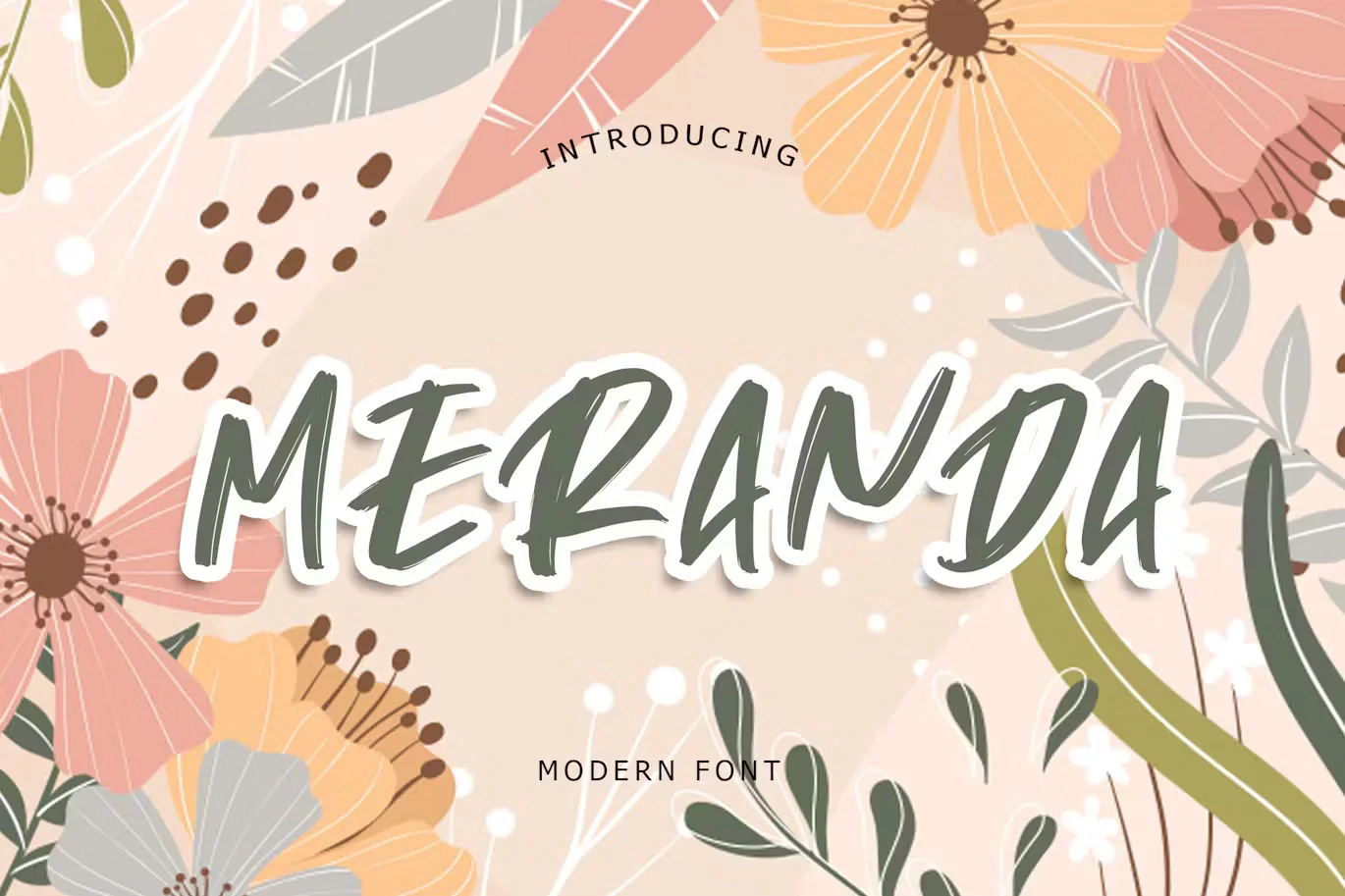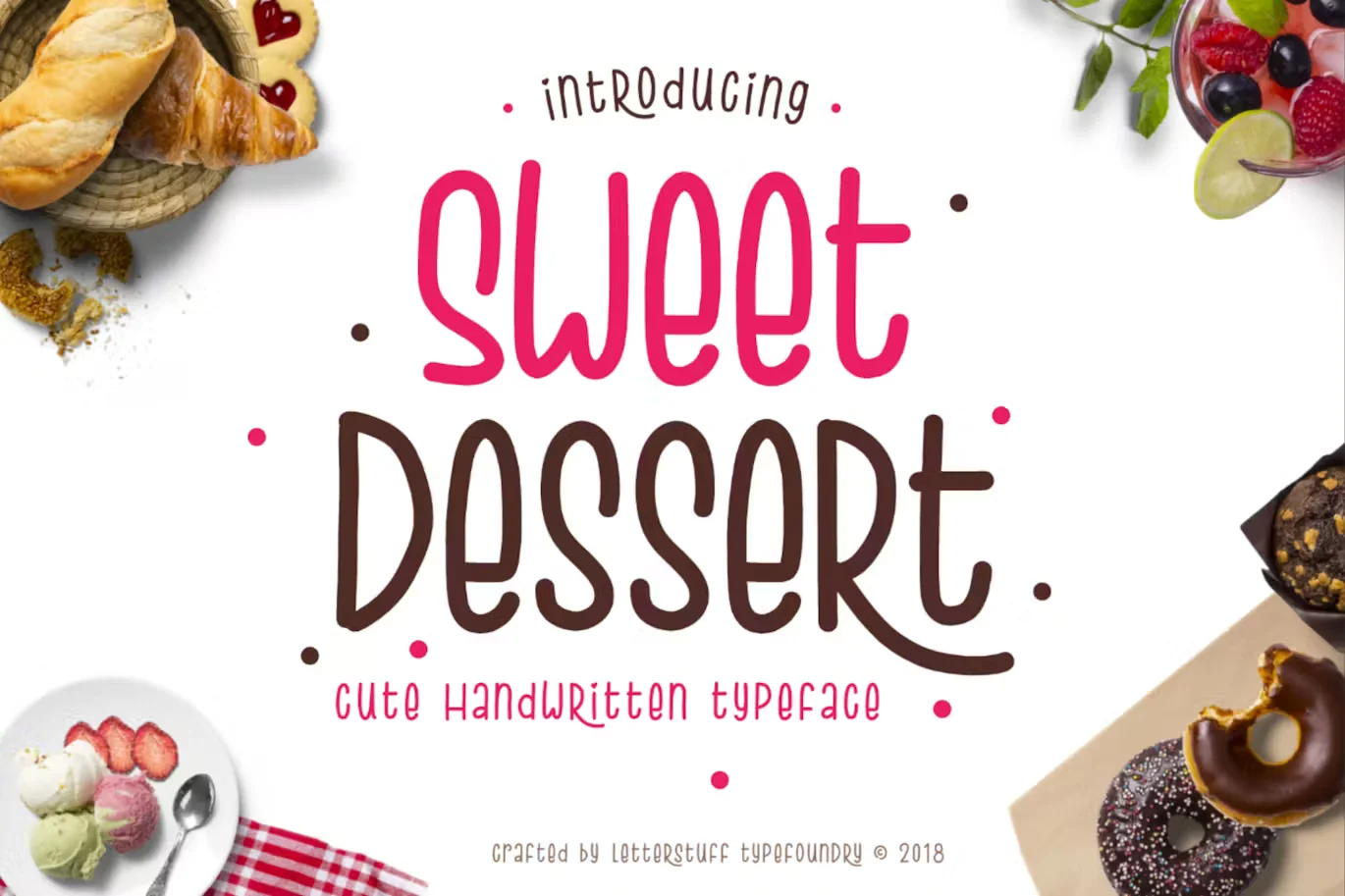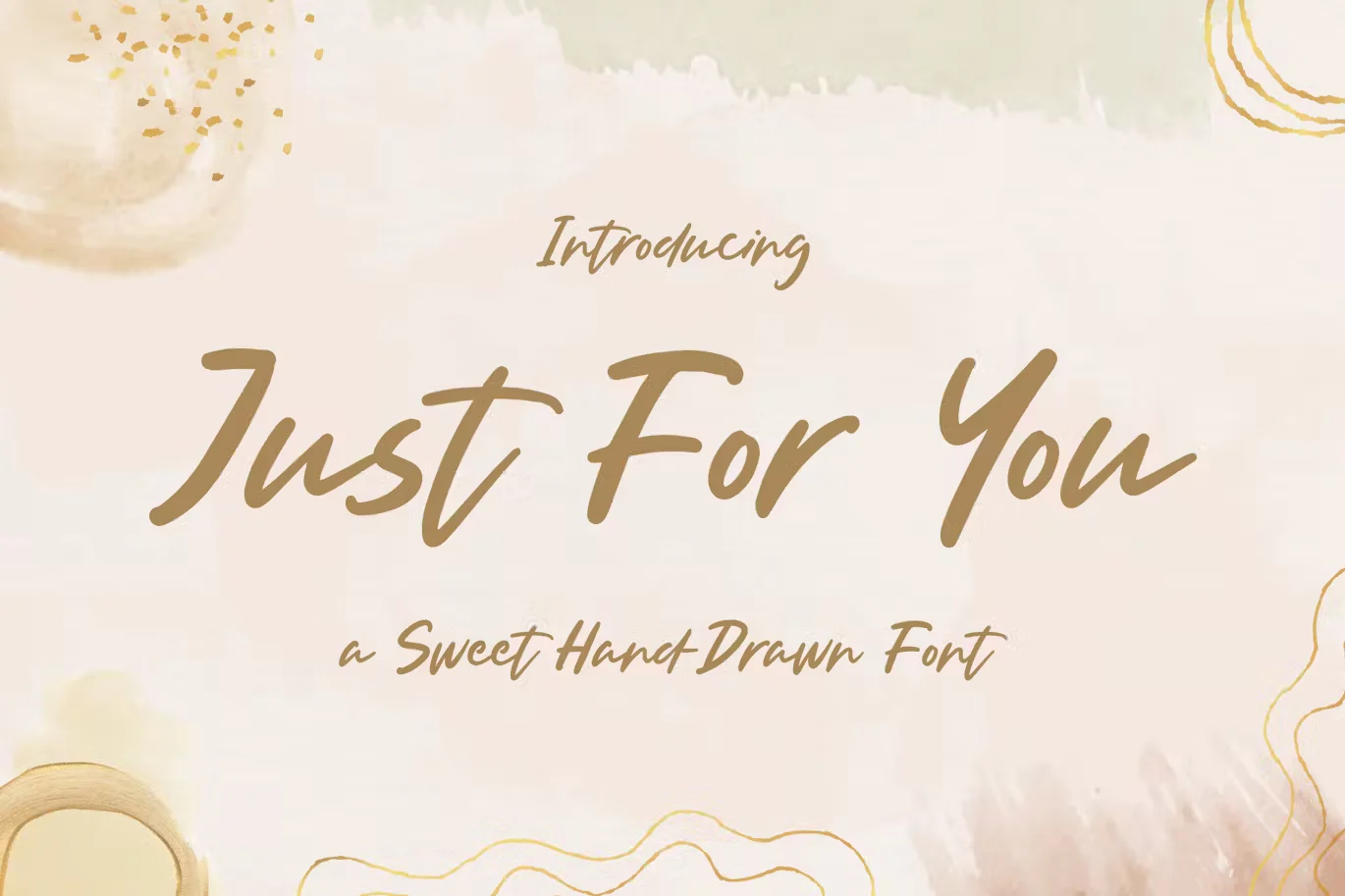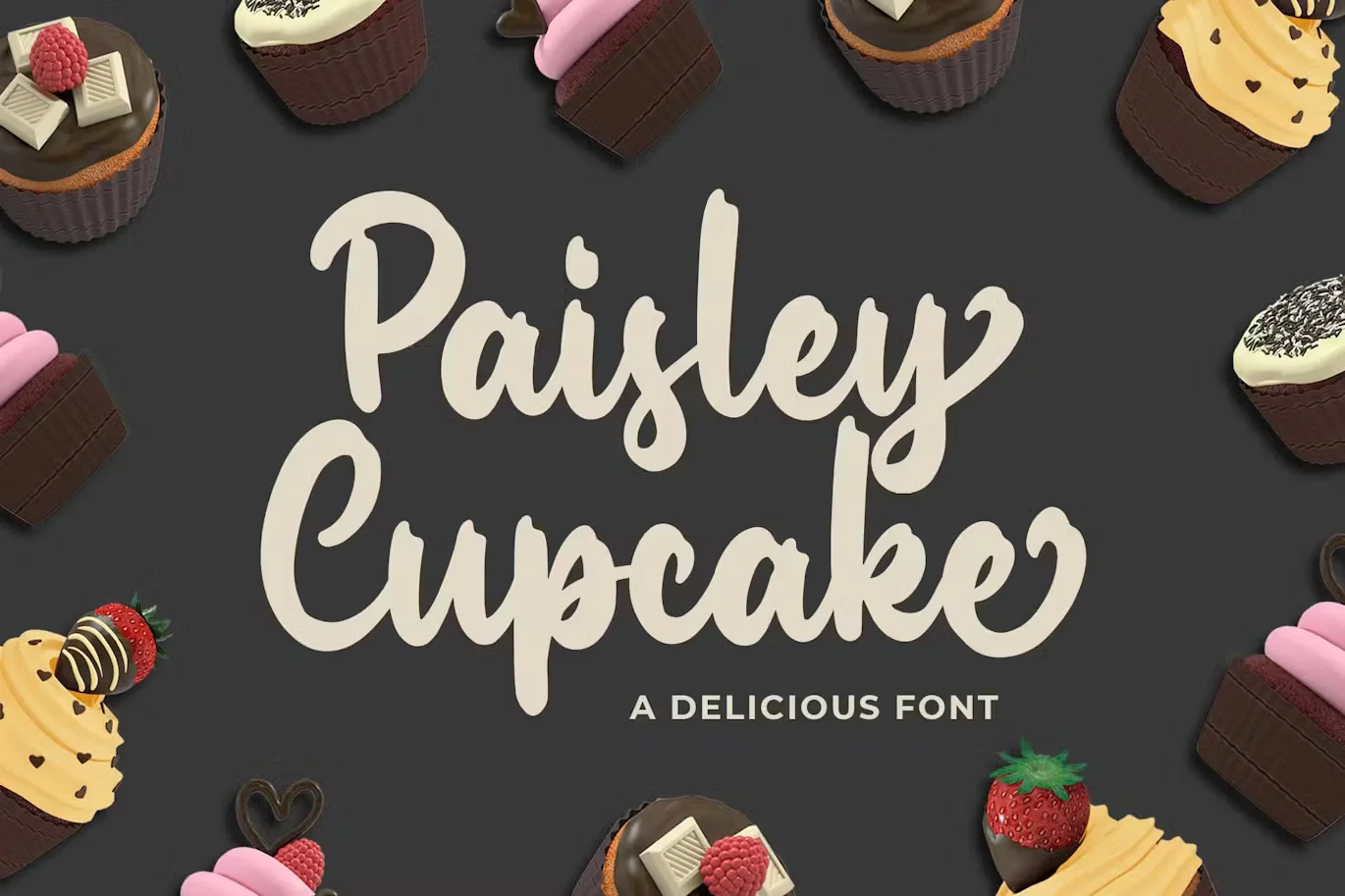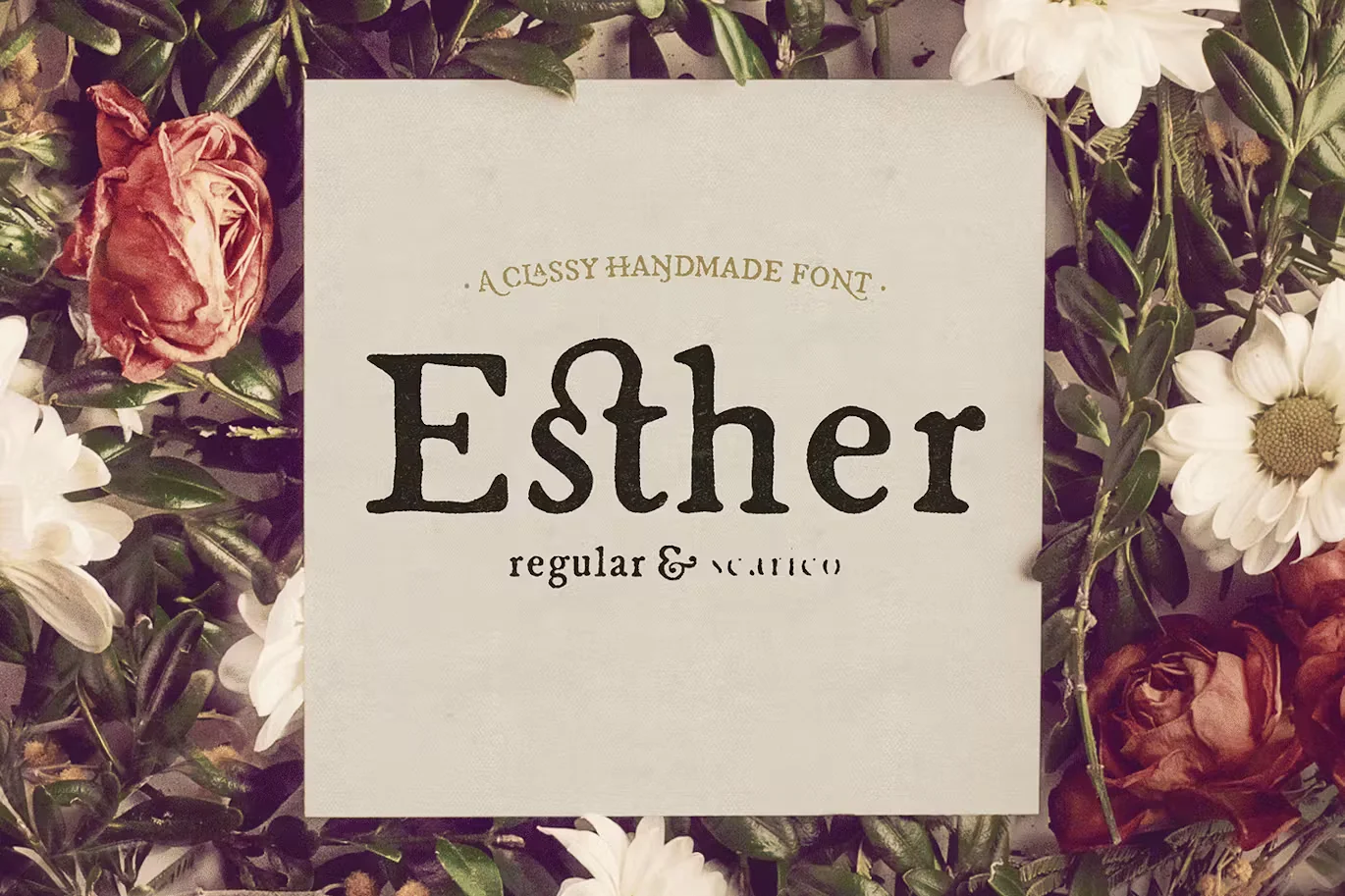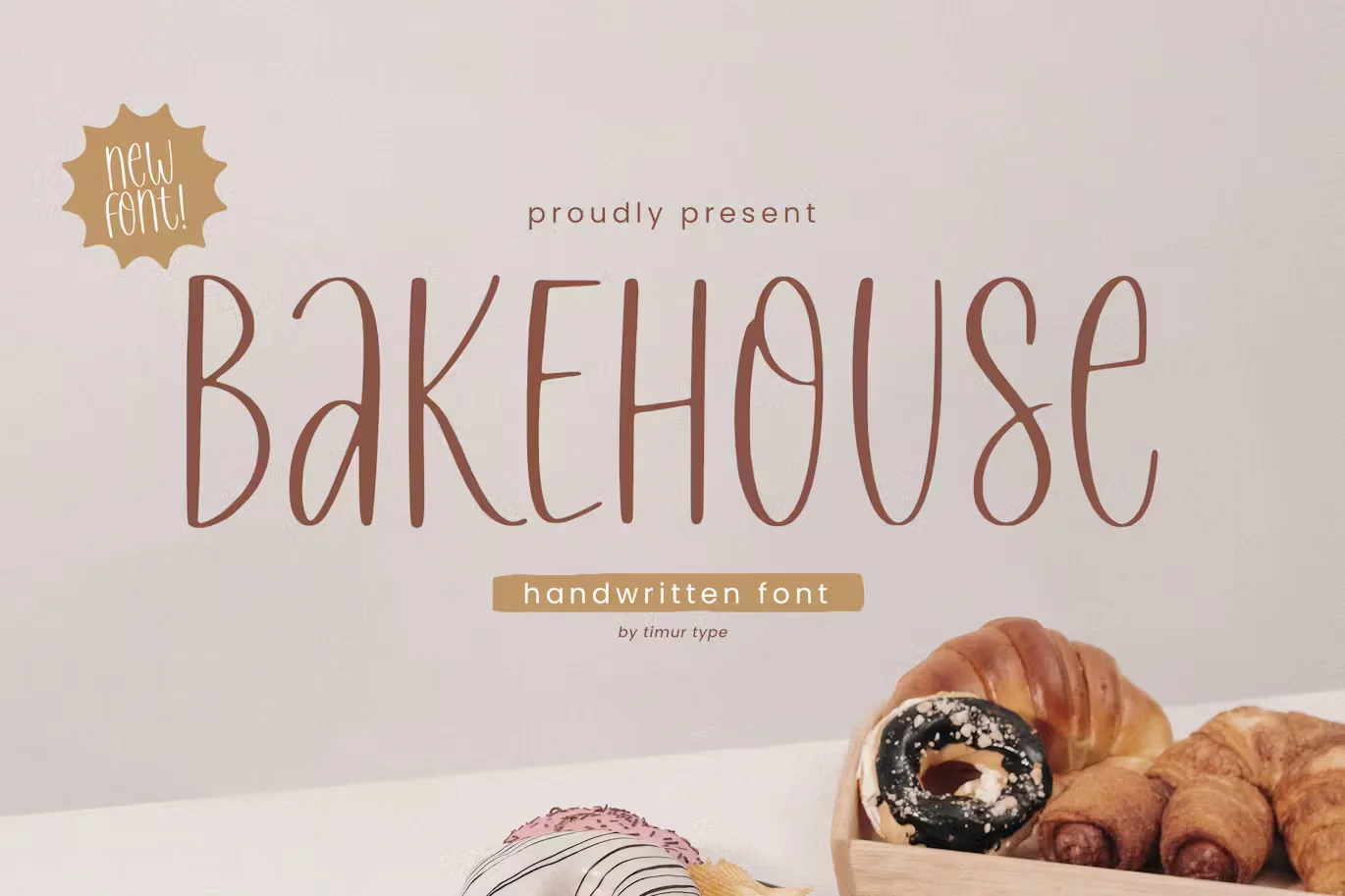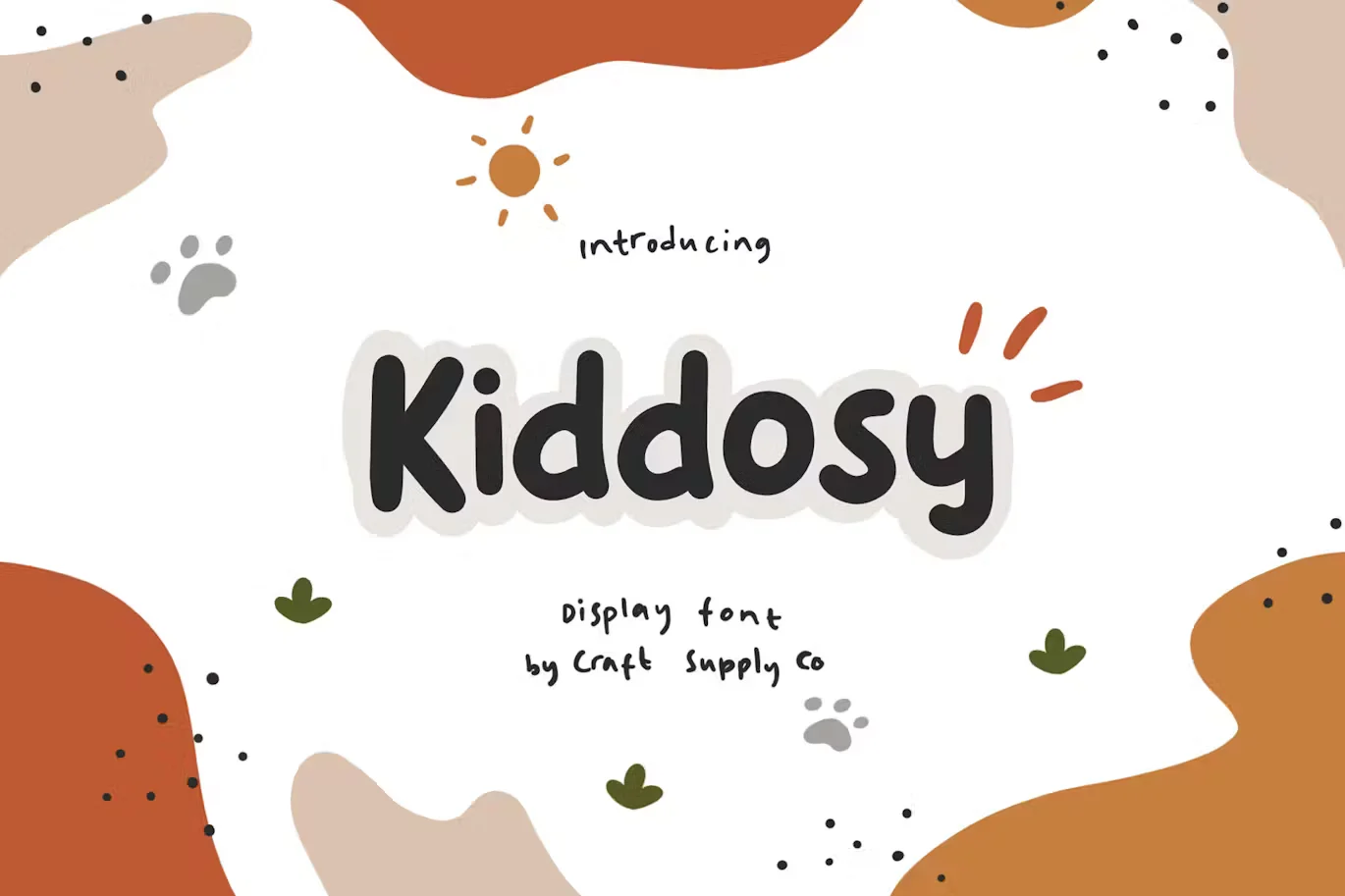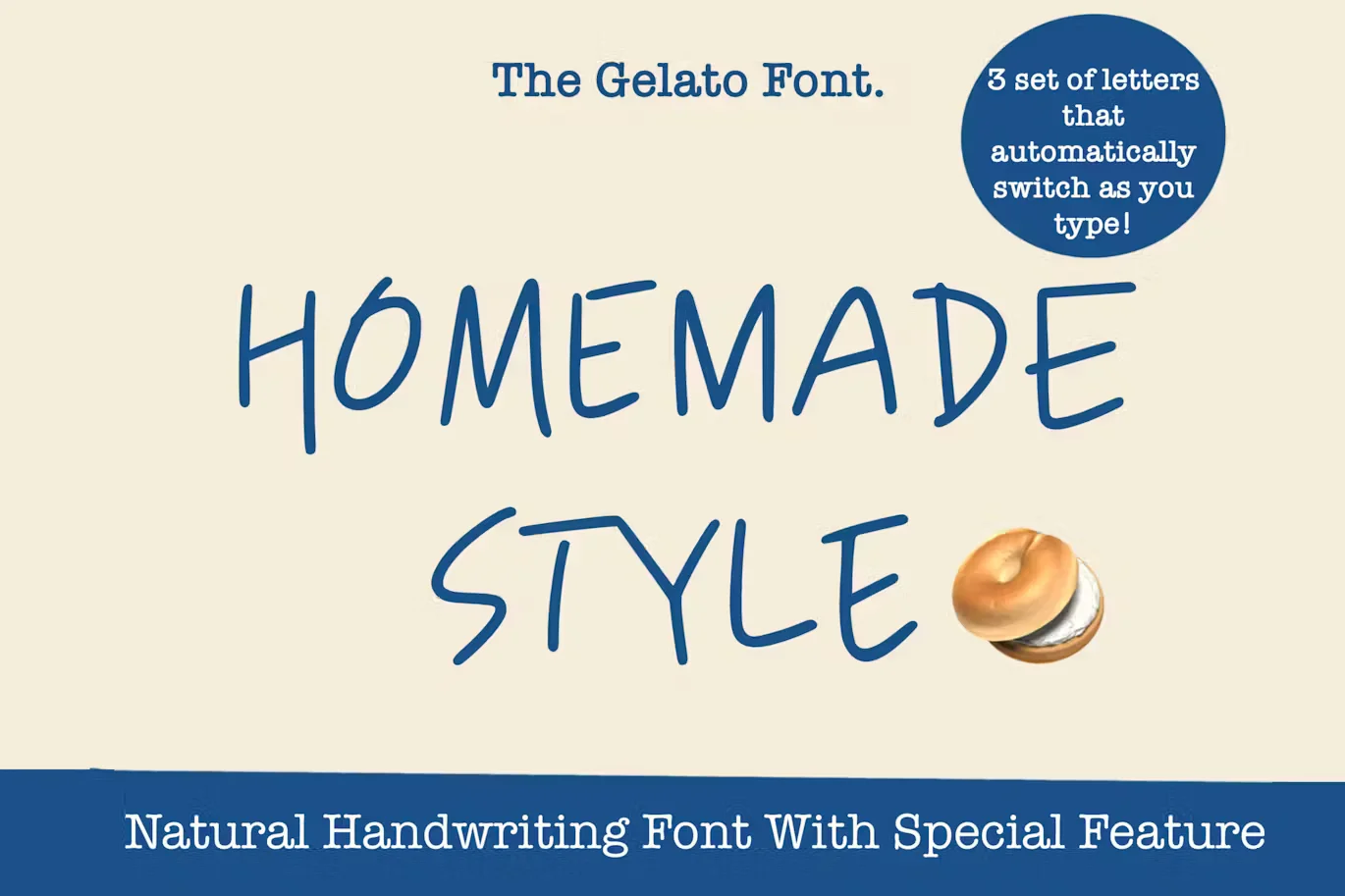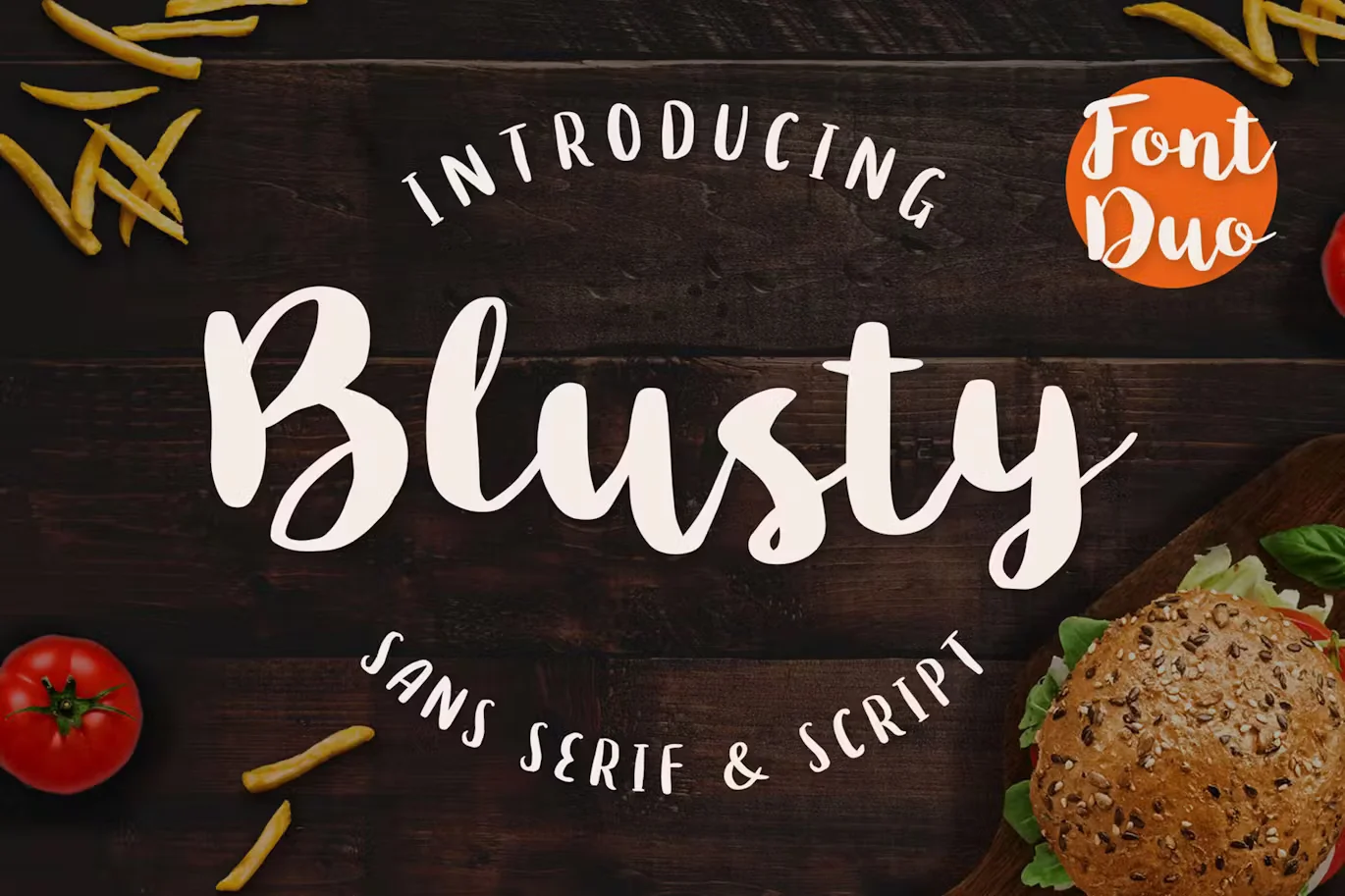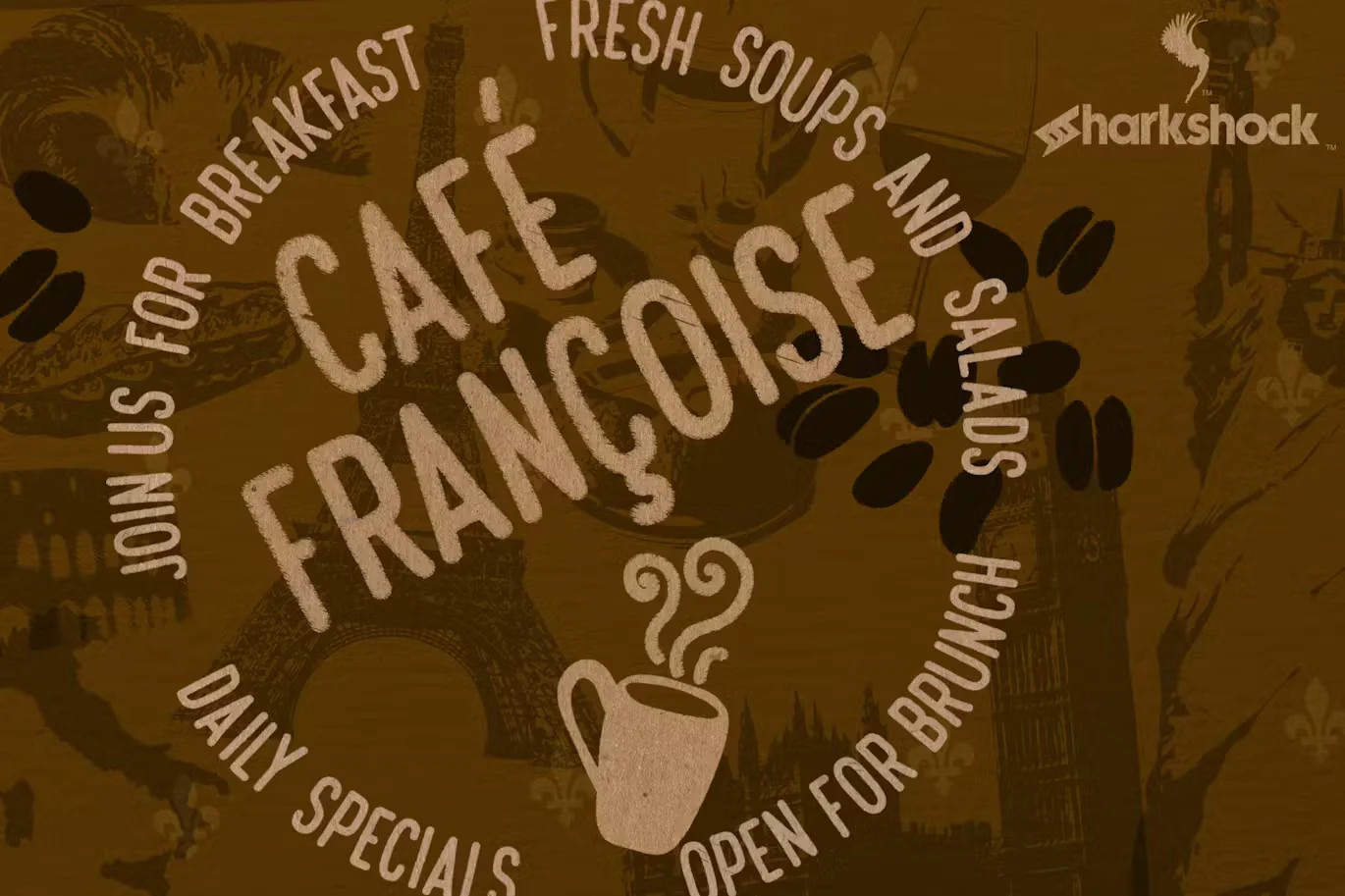
25+ Birthday Cake Fonts For Bakery Design Needs
Birthday cakes should look fun and happy. And the font you use makes a big difference. A cute or playful font can make the cake look even better and more special.
These fonts are great for writing names on cakes, making bakery signs, or designing party invites. Some look like frosting, some are sweet and curly, and others are bold and easy to read.
Here are 25+ birthday cake fonts you can use for all your bakery and party needs. They’re simple, fun, and made to bring smiles.
Why Use Birthday Cake Fonts?
Birthday cake fonts are designed to capture the essence of celebration and fun. These fonts often feature playful curves, bold colors, and decorative elements like candles, sprinkles, or icing-like swashes. Using these fonts isn’t just about making designs different; they infuse your messages with a sense of excitement and festivity, making your bakery’s offerings more enticing and delightful.
Top Birthday Cake Fonts
Here are 25 great fonts you can use for birthday cake designs:
Bravely – Handwritten Font
Bravely – Handwritten Font is an handwritten script font based on the expression of real handwriting, lets you transform type into an exciting and beautiful piece of work. The irregular, hand-lettered look adds a real human touch to things and comes along with a lot of loving details.
Bakery Goods Font
Bakery Goods is a retro display font that can be used for a variety of creative projects, from letterheads and titles to stationery. Its unique vintage style is sure to grab attention and make your work stand out.
Sanslem Font
Sanslem is a great font choice for companies, cake shops, and bakeries. It takes inspiration from the idea of dry bread with jam, simple, yet satisfying. That feeling led to the creation of this unique and friendly typeface.
Americana Bakery – Modern Script
Americana Bakery font with a Modern Script perfect for any creative design. This handmade font will make your design has a beautiful natural touch for each details. It is perfect for any design project as Invitation,logo, book cover, craft or any design purposes.
Belicia! – Casual Script
Elevate your designs with the beauty and charm of Belicia! A monoline font that exudes cheerfulness and elegant style. With its versatile and unslanted shape, this script font offers a flexible and playful impression, making it the perfect choice for your design projects.
Bakery Home – Funny Font
Bakery Home is a funny, bold and modern handwritten font, carefully handcrafted to become a true favorite. It looks outstanding in any context, whether it’s being used on busy backgrounds or as a standalone headline!
Esther Handmade Font
This font is the ultimate version of this serie, with serifs. Esther is ideal for cookbooks, menus, liquor bottle labels, food packaging, wedding invitations, greeting cards, tea boxes, food blogs, small shops, cupcake bakeries and so on.
Bakerhouse Font
This beautiful font is packed with special characters, which allows you to create truly unique and good designs. From food menus, posters, logos, logotypes, branding, headlines, weddings, flyers, quotes, labels, packaging, signage, signboards, and beyond,
Tropical Food Truck Font
It is a handwritten marker font that can be used as a Marker Felt Font, Handwritten Chalk Font. Great suitable for numerous use such as quotations, banners, logos, product packaging, titles, headers, menu lists and even for digital note-taking!
Kiddosy – Playful Display Font
Kiddosy – Playful Display Font is an handwritten displau font based on the expression of real handwriting, lets you transform type into an exciting and beautiful piece of work. The irregular, hand-lettered look adds a real human touch to things and comes along with a lot of loving details.
Moon and Chips Script Font
This new Moon and Chips Script Font is a hand lettered font. Created for everyone love making something beautiful, and special who loved to make a chips and other snack.
Crumble Bakery Handwritten Font
The Crumble Bakery Handwritten Font is a fresh, neat and versatile font take advantage of it and see how amazing it is. Crumble Bakery font will be perfect for logo, greeting cards, presentations, headlines, lettering, posters, branding, quotes, titles, etc.
Rolling Bakery Handwritten Font
It is a unique, clean and rough script font that has a Latin look with beautiful handwriting like curved edges, giving it a distinctive look. Rolling Bakery font will be perfect for logo, packaging, headlines, lettering, posters, branding, quotes, titles, books, book title, or just used to express words above a text overlay.
Meranda Modern Font
This font perfect for branding projects, logo, book cover design, tshirt designs, social media posts, advertisements, product packaging, product designs, label, watermark, invitation, stationery and any projects.
How to Choose the Right Font
Choosing the right font depends on the theme and style of your cake. Here are some tips:
• Readability: Make sure the font is easy to read.
• Style: Match the font style with the theme of the cake.
• Theme: Consider the recipient’s preferences and the overall design.
Conclusion
Choosing the right font can make your birthday cake designs look amazing. Experiment with different fonts to find the perfect one for your bakery needs. Happy designing!